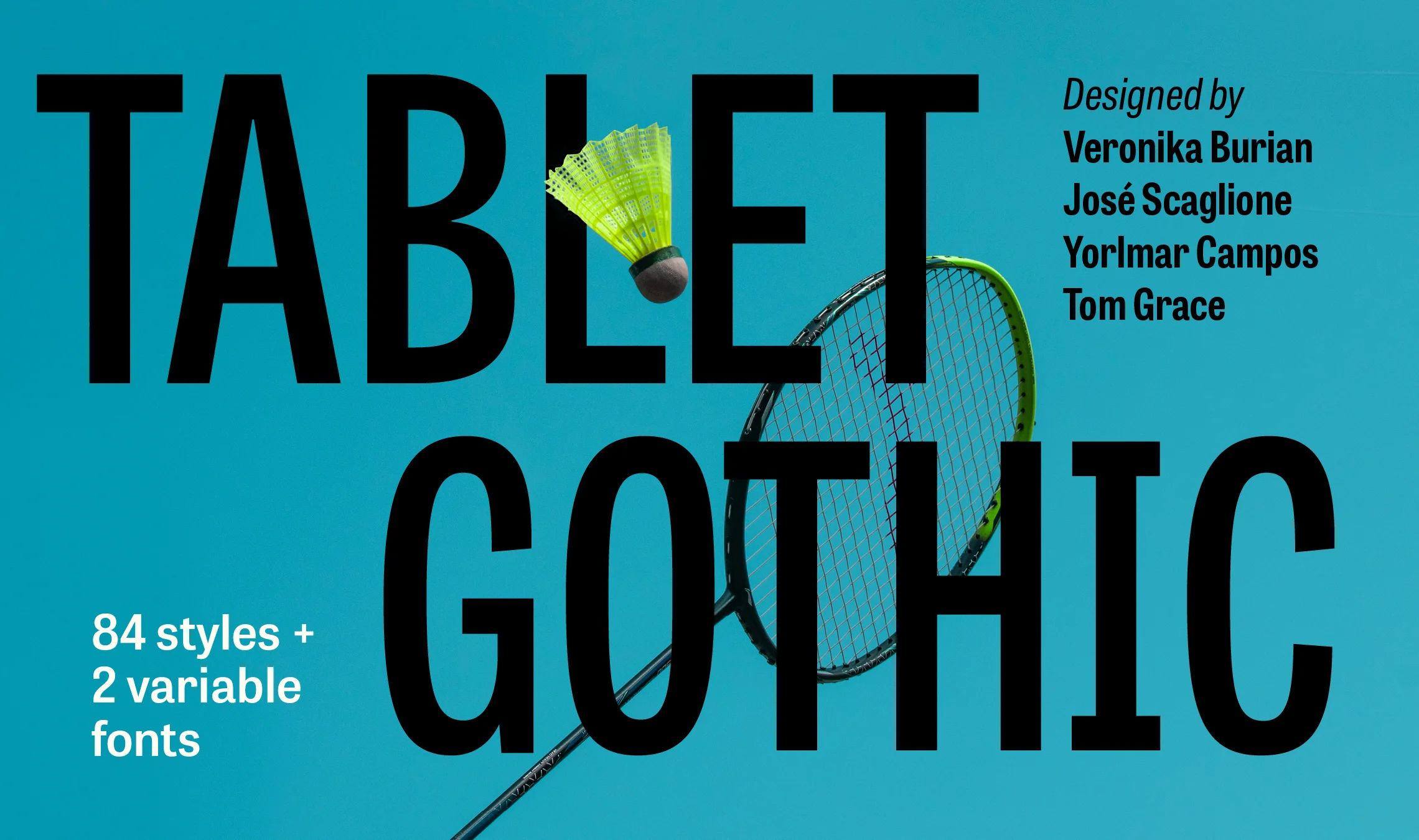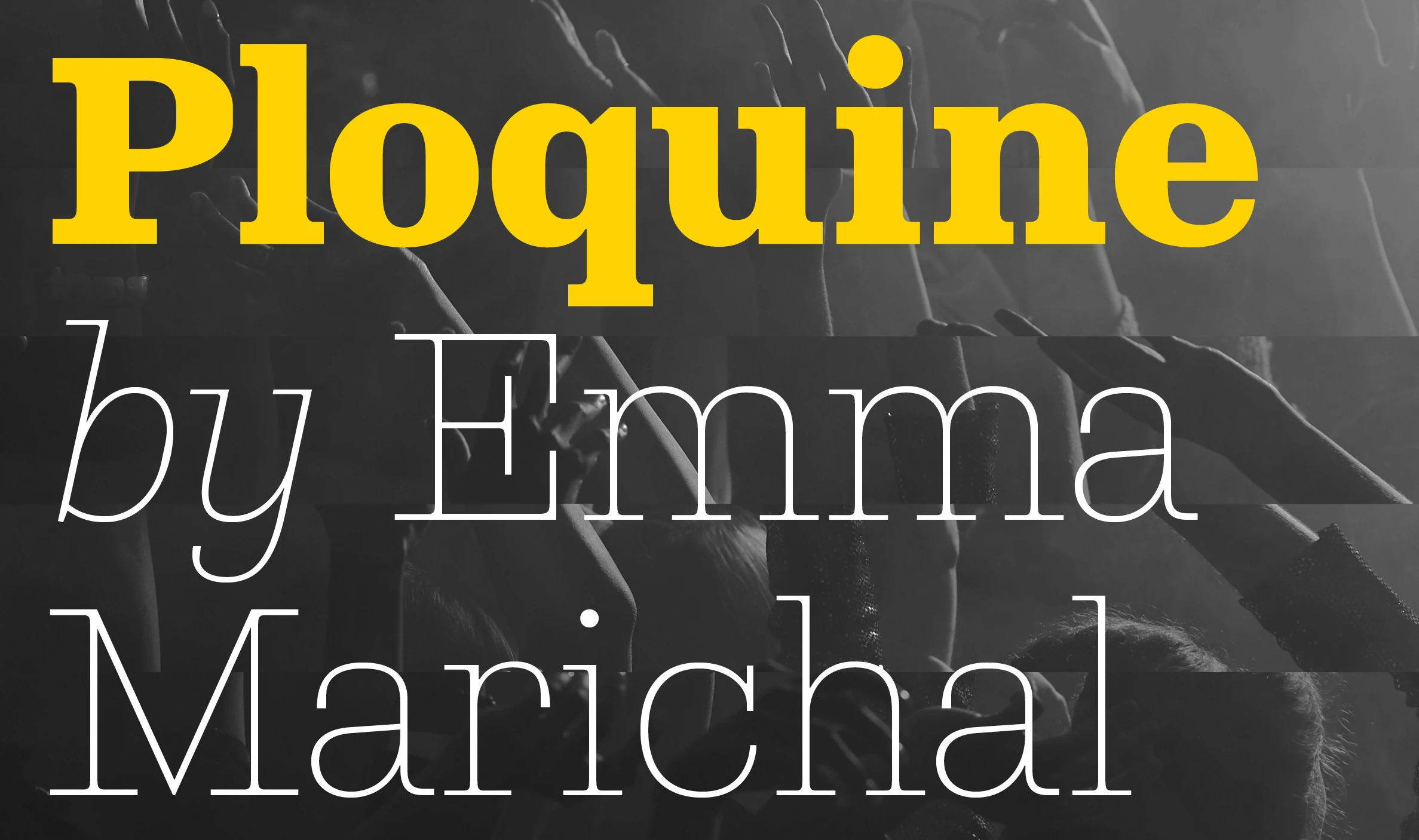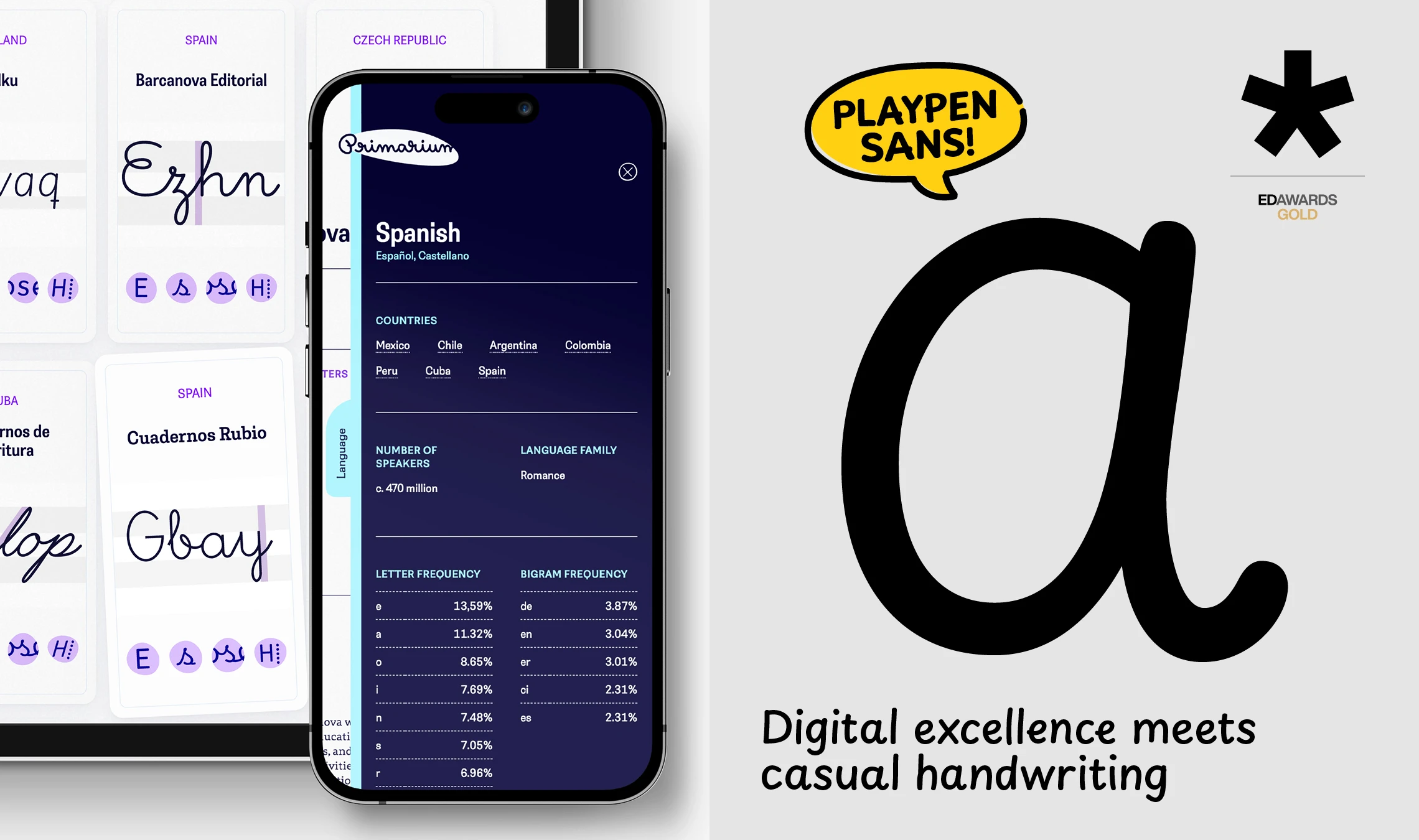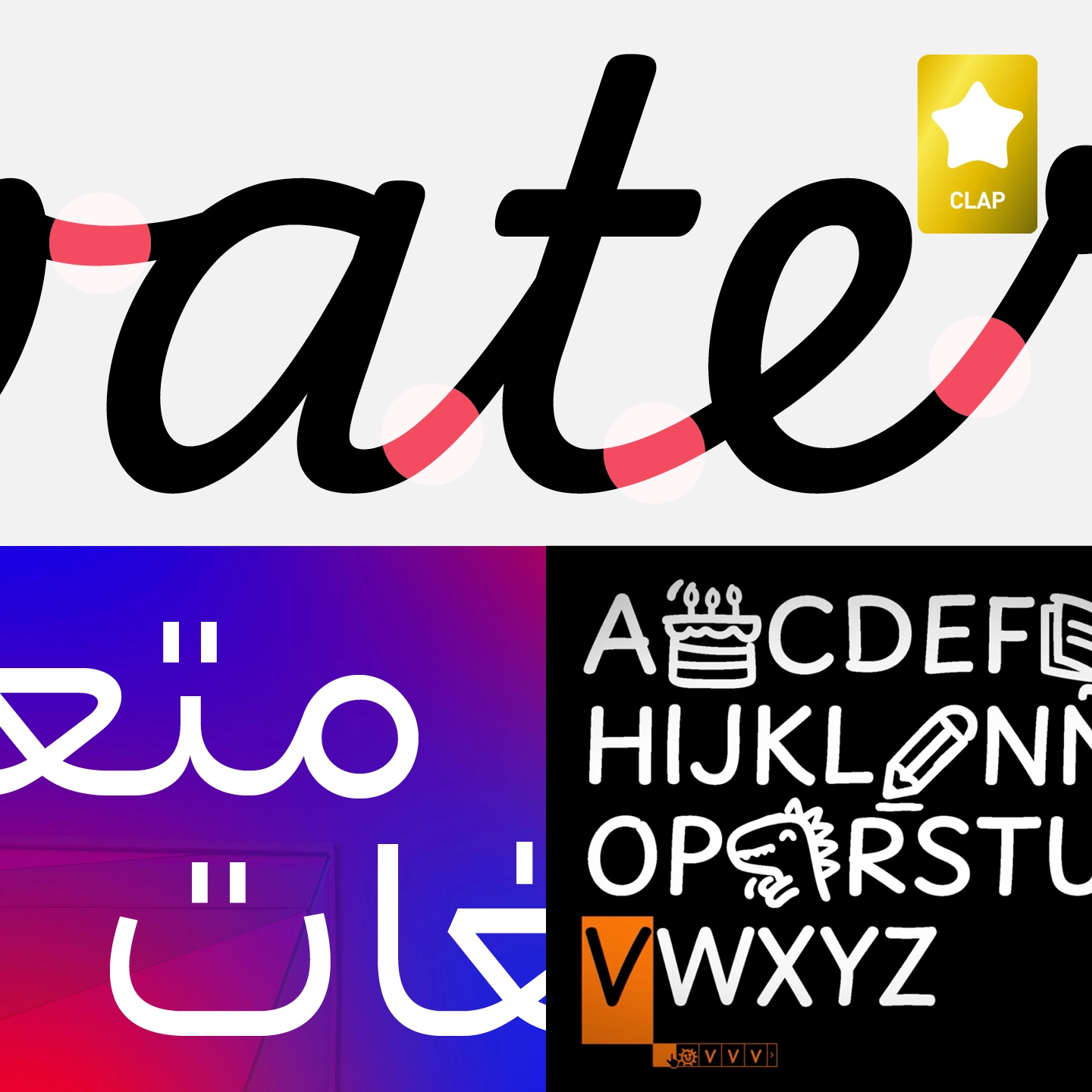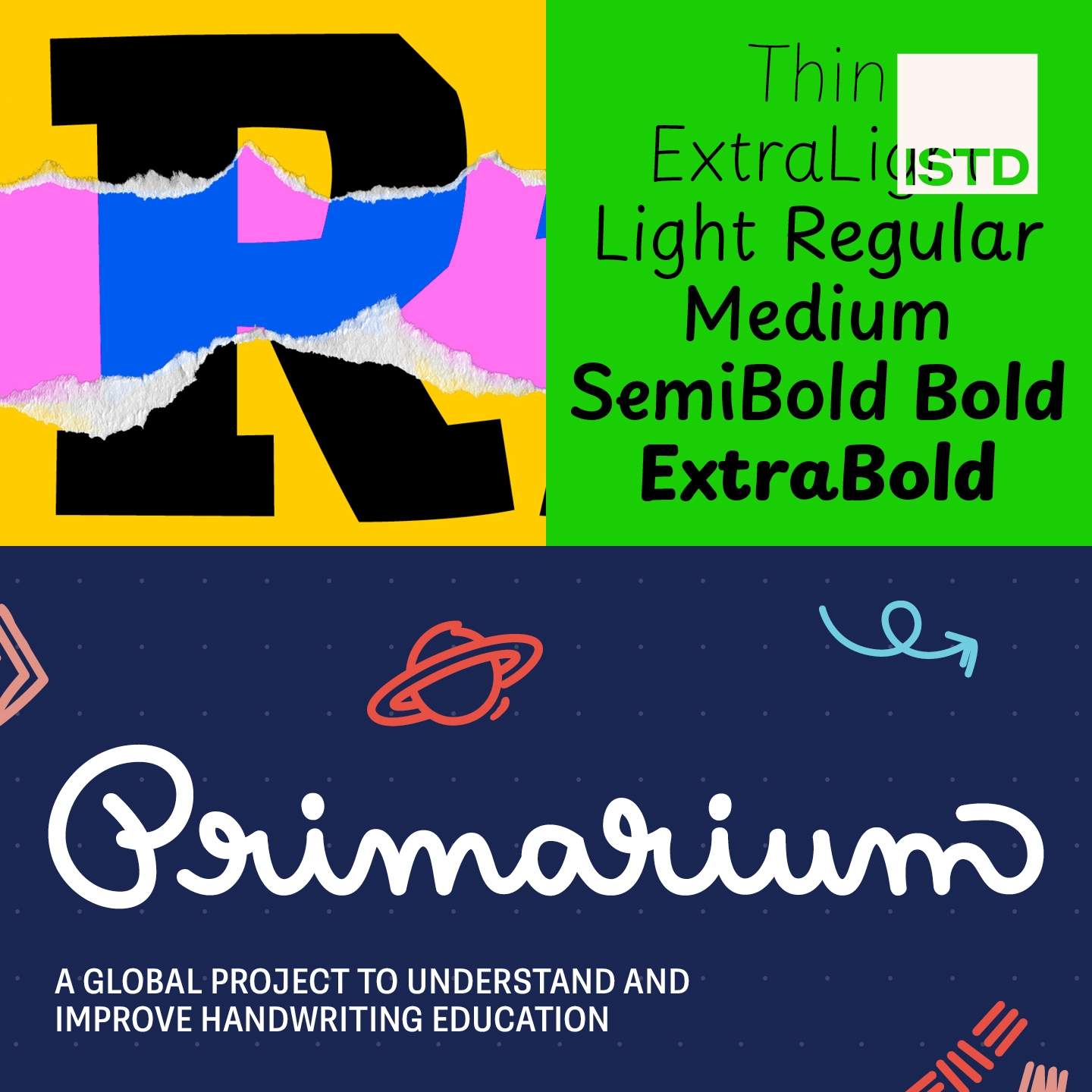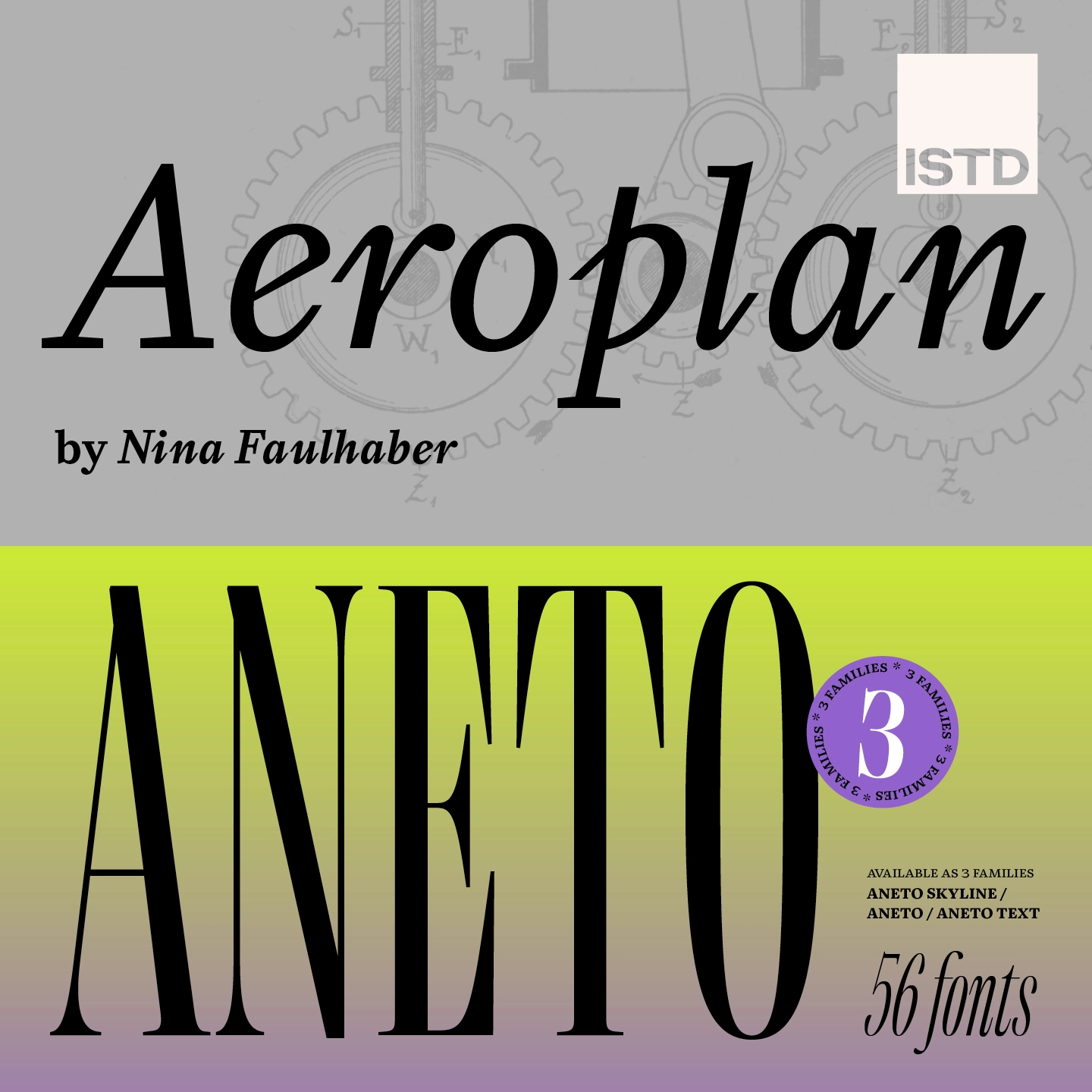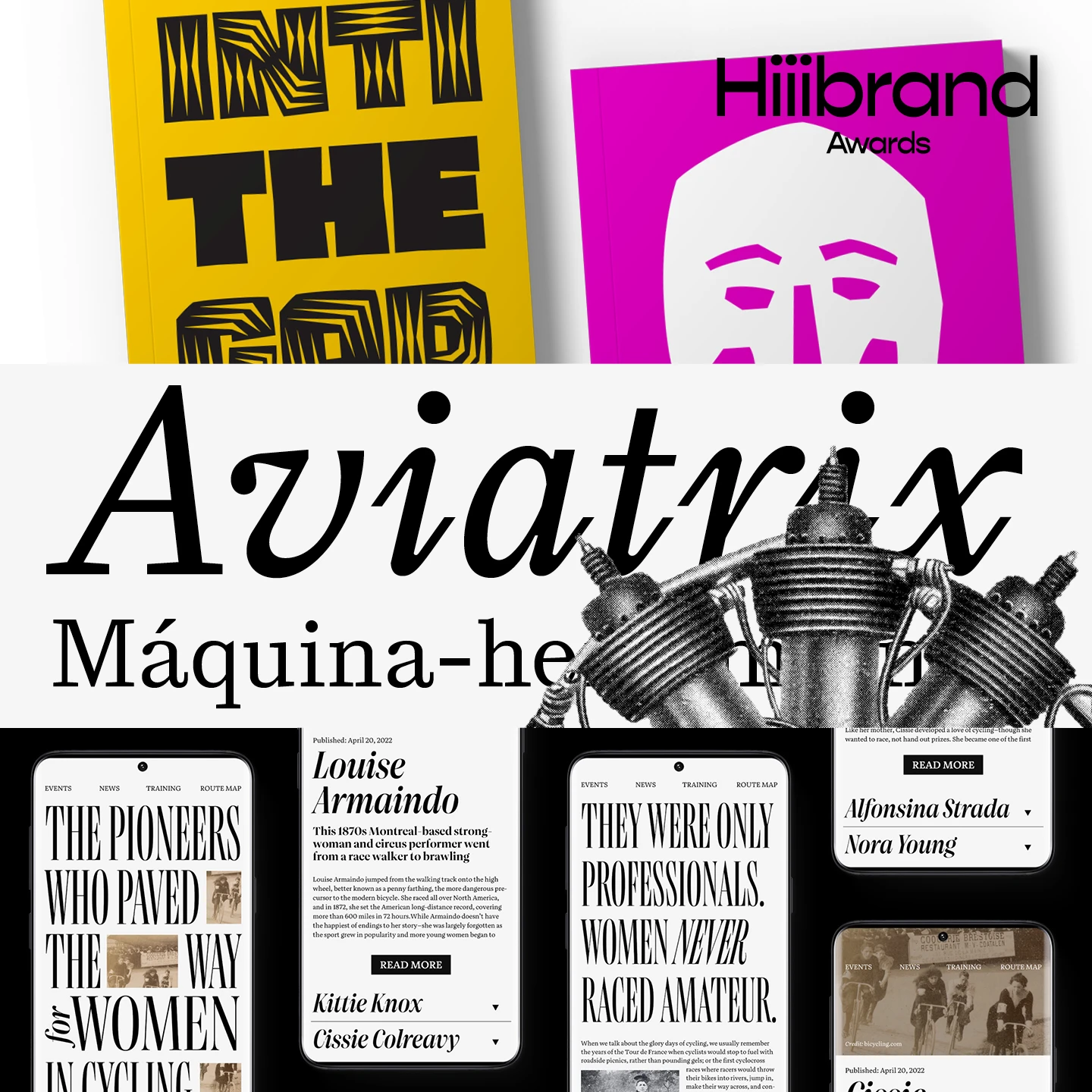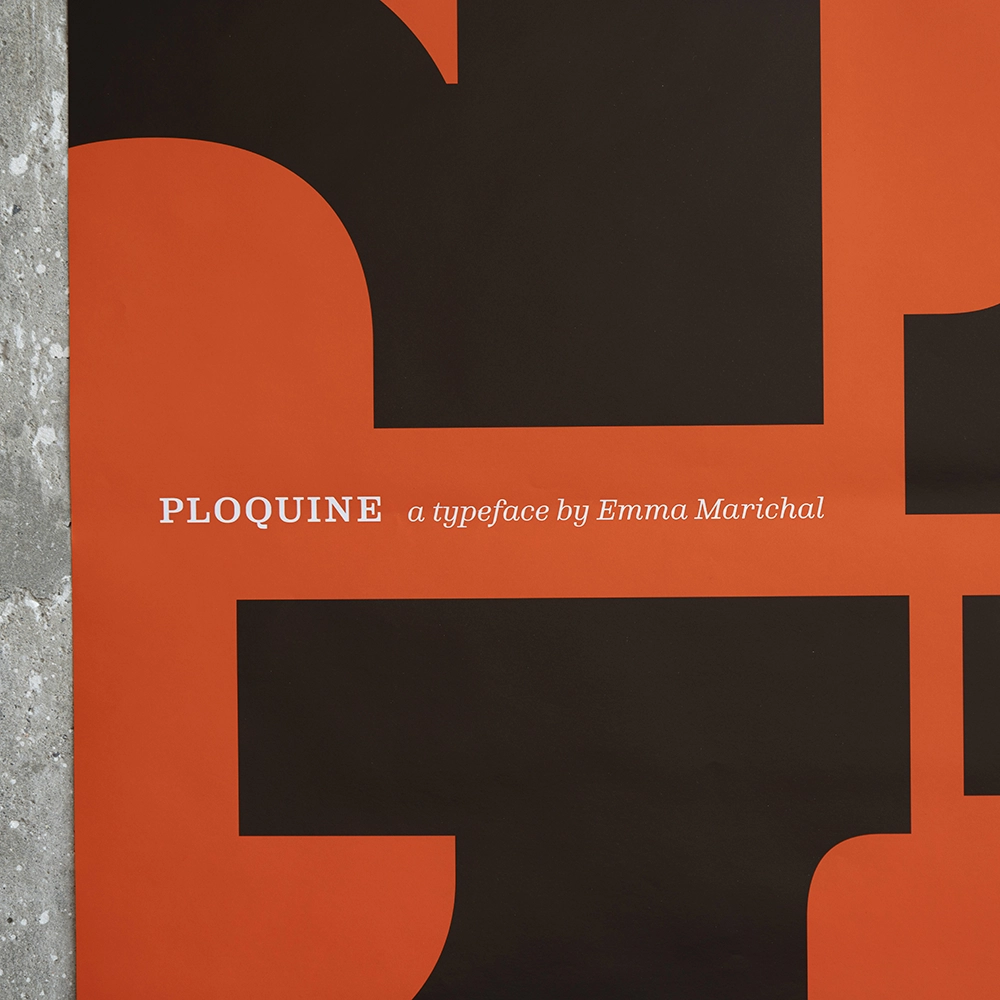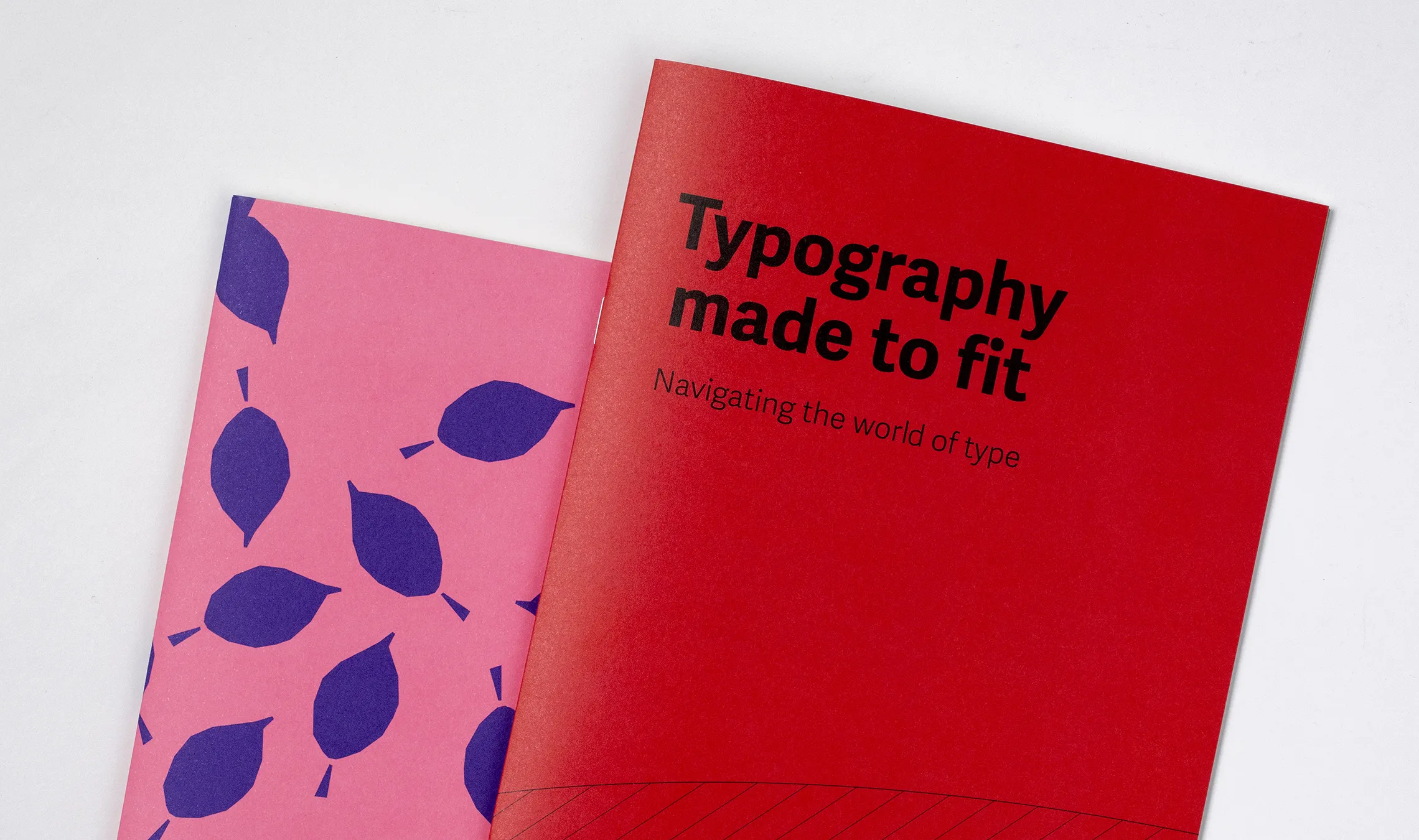
The Typetogether Story: Chapter 2024
As the seasons change and we take time to enjoy the holidays, we also take a minute as a company to reflect on this past year’s projects. It’s no use to just toss a dozen or two families into the digital ether — we want to be purposeful about what we bring to the world, adding value instead of more noise. So join us as we look back at what we’ve been able to accomplish in 2024 with you and our other partners.
New Typefaces in 2024
Type design is equal parts science and art — aesthetically appealing and functionally adept. This past year gave us many opportunities across several categories: impressive typeface releases, education support, insightful editorials, unique custom fonts for corporate clients, and working on two upcoming books: one about Primarium and another about Gerard Unger and the annual TypeTogether scholarship named after him. Ready for this year’s wrap-up? It’s chock full of great work! And along the way we’ll give a few hints about what’s to come.
In July we released an upgrade of Tablet Gothic. We almost doubled the character set to now include well over 200 languages, retooled a few shapes to bring greater refinement and future-proofing to the entire family, and made a variable font version for almost infinite styles in a much smaller file size. If you haven’t already done so, grab your free upgrade from our website now!
A few months ago we released Chaco by renowned Argentinian designer and educator Rubén Fontana. Chaco is an outrageously contemporary offering from classic roots with seven weights plus matching italics — packed in static fonts or as a variable font — that increase its ability to compose headlines and texts for mass media, particularly newspapers and periodicals. It is also a pitch-perfect typeface for identity and branding work, wayfinding, and composing immersive reading texts.
Postea expanded this year with four new scripts for the generously styled and impactful geometric font family. The entire five-script Postea family holds to meaningful minimalism in which each element is deliberately placed, has functional and aesthetic utility, and is able to fulfil more than one purpose. From branding and posters to headlines and text, Postea Multiscript can be as bright as a neon colour palette or as subdued as a whisper. In text it is the partner to more audacious typefaces, and in larger sizes it sets the tonal expectation for the rest of the design. Snag it in Arabic, Latin, Cyrillic, Greek, and Hebrew.
The geometric release was followed by a modern and trustworthy slab serif — Emma Marichal’s Ploquine As the winner of the 2022 Gerard Unger Scholarship, Ploquine is an editorial typeface of structured delicacy and wide applicability. Its lighter weights carry a ton of air within their forms to lean into the emotions of delicacy and subtlety. Its heavier weights claim territory on a page and state its message with confidence. And each style in between shows varying levels of squared counterforms and unique details. Use it for a logo or masthead, find delight in how this slab can be perfect for magazine text, and revel in its details in large-format posters. Ploquine’s range is immense and we can’t wait for you to enjoy it!
Playwrite
We have continued to move forward with research and new projects based on the results from our Primarium.info website. You’ve already seen our casual, tech-savvy, and free Playpen Sans, and have likely seen that we are expanding it with more scripts coming in 2025, but we wanted to take it one step further.
We created Playwrite, a wonderfully comprehensive family, based on the Primarium results for each of the 40 Latin-based countries. Simply choose your desired country, download the fonts, and use the font for your lessons. It is a free, versatile typeface for teaching handwriting, localised for your region — amazingly elementary.
Custom Fonts
Each year we are graciously commissioned to create custom typefaces for great companies, and this year was no different. We designed Karmina UBS, Bely Monroo, and logo design for Esthevas. We continued our strong relationship with the overall Ötztal brand and provided another custom design, Ötztal Widi, to their repertoire. The new Etica Garda Trentino is a custom version of LFT Etica with a few curvy, eye-catching characters. And Adelle Sans Gurgl Headline is a modified version of Adelle Sans Condensed with slants in the typography, inspired by the diagonals of the diamond element and reflecting Gurgl’s special attraction in the Alps.
For years our free, invitation-only microsite, TypeTogether Premier, has focused on serving agencies and other creative organisations. We are currently woking on updating our main website, including Premier, with greater functionality to serve you better: the possibility to easily download test fonts with reduced character sets, and continuing relationships with branding agencies, publishers, and graphic design studios.
As always, we continued to publish articles, interviews, and other pieces of interest on our blog. Here are some highlights from 2024.
Interviews & articles